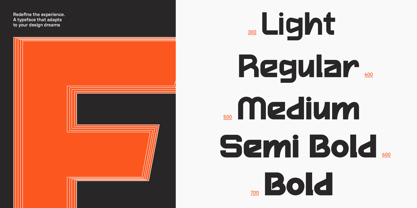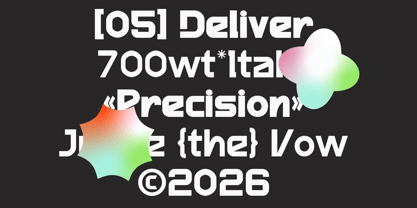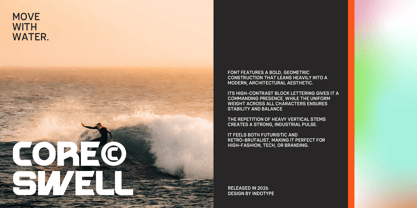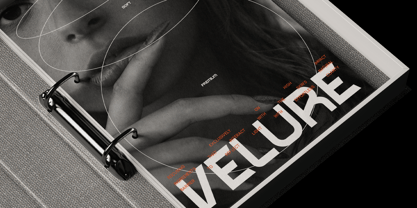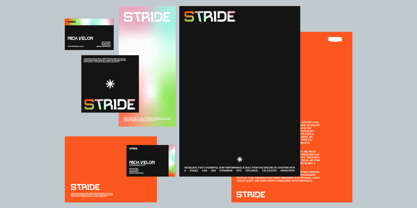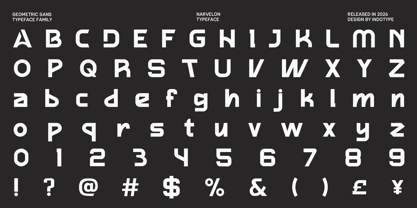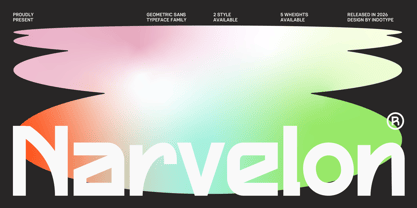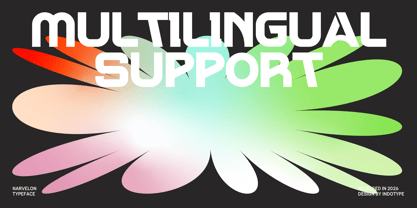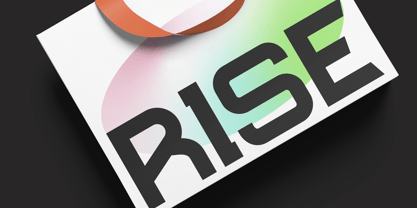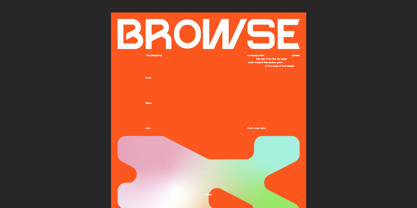
IT Narvelon
by Indotype
The IT Narvelon Font Family was designed by Frederik Aristaputra and published by Indotype. IT Narvelon contains 10 styles and family package options. More about this family
Narvelon is a meticulously crafted geometric sans-serif typeface family built for versatility, clarity, and modern sophistication. Rooted in the timeless principles of geometric design—circles, squares, and straight lines—Narvelon achieves a perfect balance of structural precision and humanist warmth. Its clean, open letterforms ensure exceptional legibility across all applications, while its considered proportions give it a distinctive, contemporary voice. This comprehensive family offers exceptional flexibility with 5 weights—from a delicate Thin to a commanding Heavy—each available in 2 styles (Regular and Italic), making it a complete typographic system for any project. Whether used for corporate branding, editorial design, digital interfaces, or wayfinding systems, Narvelon adapts seamlessly while maintaining its cohesive geometric identity. It's not just a font family; it's a design toolkit for the modern creative. • Ideal for: Corporate Branding & Identity Systems, Editorial & Magazine Design, Digital Interfaces & Web Design, Wayfinding & Signage, Packaging Systems, Advertising & Marketing Campaigns. • Classification: Sans-Serif, Geometric, Family, Multilingual. • Attributes: Clean, Versatile, Modern, Precise, Professional, Adaptable, Timeless.
Designers: Frederik Aristaputra
Foundry: Indotype